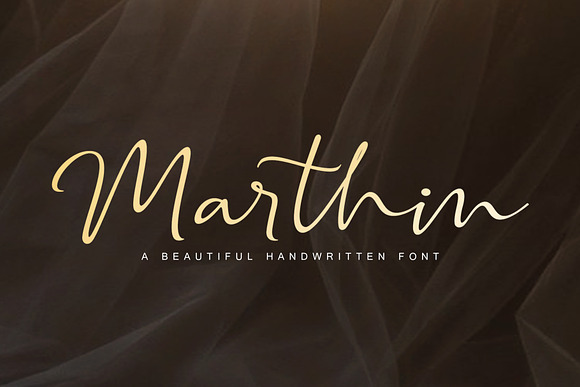
Marthin - Script Font
Marthin Script Font is perfect for elegant wedding invitations, sophisticated calligraphy workshops, luxury brand identities, refined personal stationery, romantic greeting cards, high-end fashion labels, graceful event materials, boutique hotel signage, premium beauty packaging, and distinguished personal branding.
What makes Marthin Script Font so exciting is its extraordinary ability to embody refined elegance and sophisticated penmanship through flowing script letterforms that seem to dance with graceful confidence and radiate the timeless charm of masterful handwriting. This distinguished typeface captures the essence of classical calligraphy and personal elegance with characters that communicate both artistic skill and sophisticated taste. The font's graceful design elements perfectly balance traditional script beauty with contemporary luxury appeal, creating an indispensable tool that communicates refined sophistication, personal elegance, and calligraphic mastery, making it essential for brands and projects that celebrate the art of beautiful writing and the personal touch that distinguishes truly elegant communications.
Marthin Script Font comes in multiple font families including Regular, Bold, Light, Flowing, Swash, Condensed, Extended, and Elegant variations. Each family member maintains the core calligraphic characteristics while offering different elegance levels and stylistic approaches to suit various sophisticated and personal design requirements.
The Marthin Script Font Free Download offers designers and luxury brands an incredible opportunity to incorporate authentic calligraphic elegance into projects that demand personal sophistication and refined aesthetic appeal. This remarkable typeface distinguishes itself through its unique ability to communicate themes of personal refinement, elegant craftsmanship, and sophisticated individuality. Whether you're developing luxury personal brands, creating elegant wedding materials, or designing sophisticated hospitality communications, this font ensures your message flows with the graceful elegance and personal sophistication that discerning audiences appreciate and seek.
The calligraphic precision in Marthin Script Font makes it particularly effective for luxury personal services and elegant celebrations where conveying authentic sophistication and personal refinement is crucial for connecting with clientele who appreciate genuine elegance and refined aesthetic sensibilities. Its flowing letterforms work beautifully across both intimate personal applications and sophisticated brand communications, maintaining consistent elegant appeal and personal charm.
Luxury branding professionals appreciate how Marthin Script Font transforms ordinary communications into elegant expressions of personal sophistication and refined taste. The typeface's graceful character set includes special decorative swashes, elegant ligatures, and refined alternates that enhance the overall sophisticated atmosphere of any personally elegant project.
For creative professionals serving luxury personal services, elegant celebrations, and sophisticated lifestyle brands, Marthin Script Font serves as the perfect foundation for establishing memorable visual identities that capture the essential qualities of personal elegance, refined sophistication, and calligraphic beauty that define successful brands celebrating the timeless appeal of graceful handwriting and the personal touch that makes elegant communications truly memorable and distinguished.